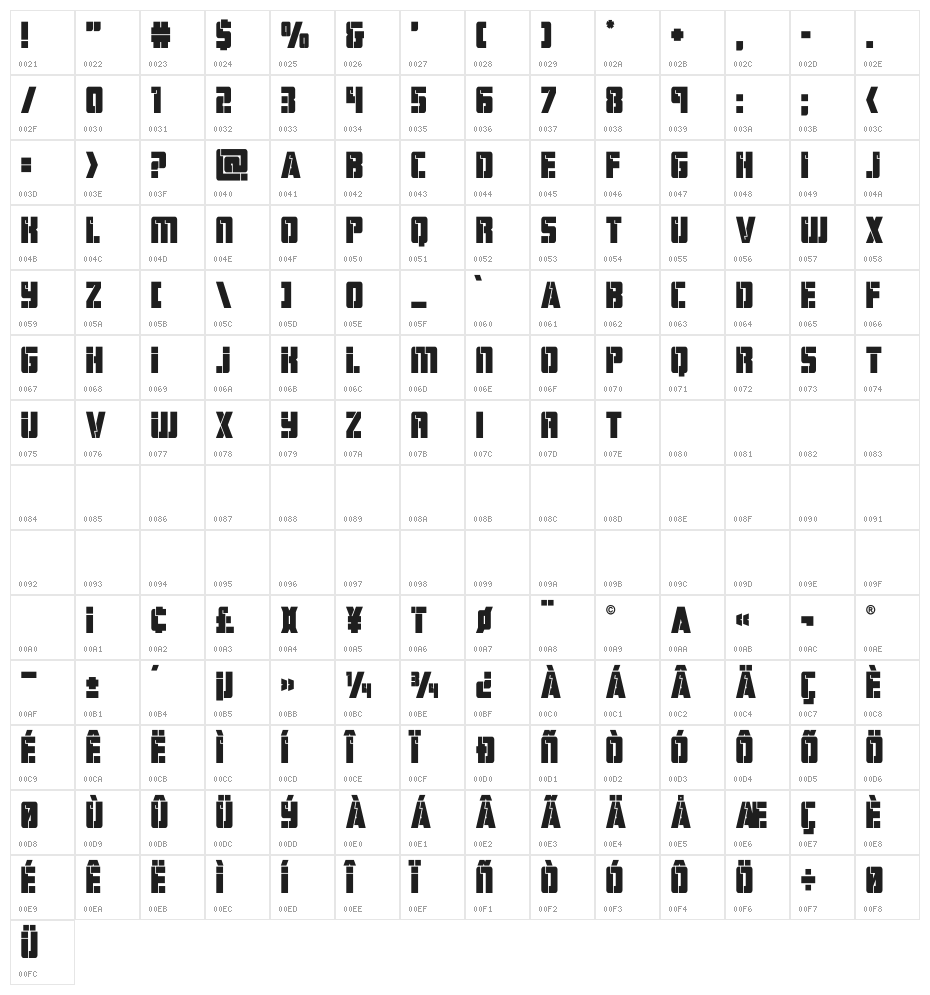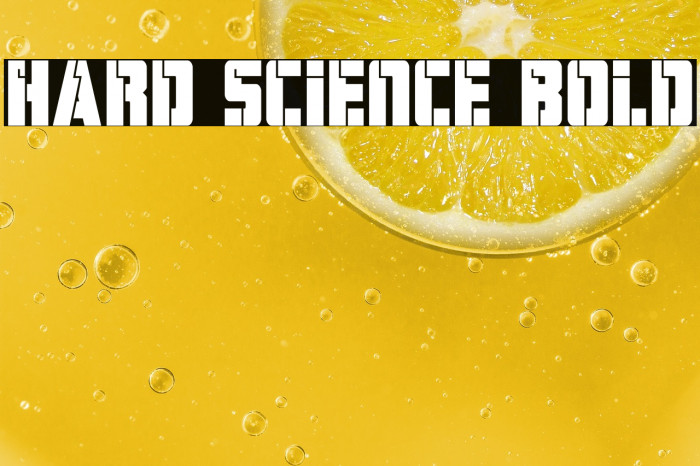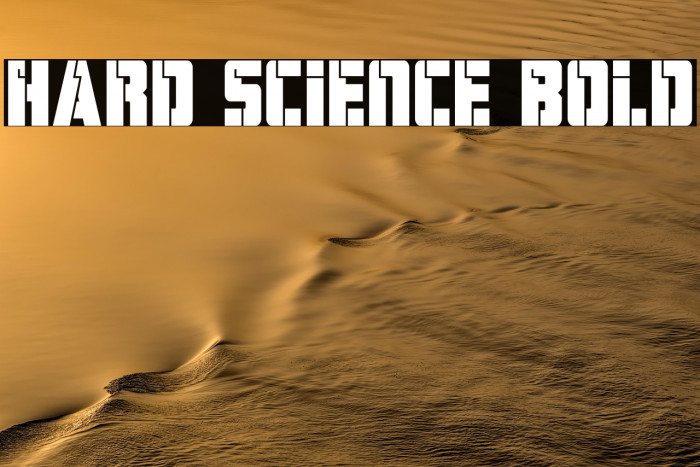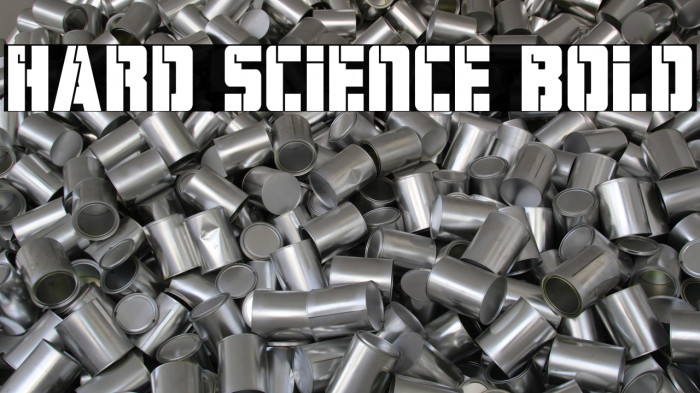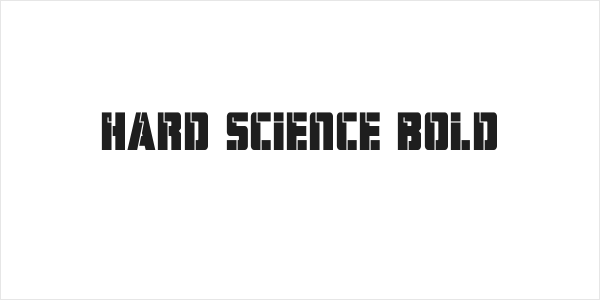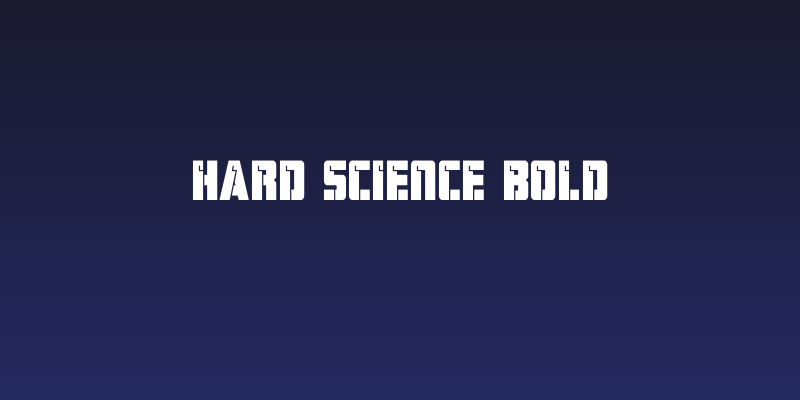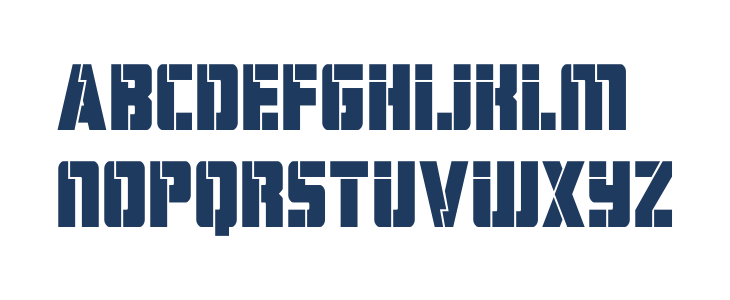
Hard Science Bold Font
Hard Science Bold Description
This font features a bold, geometric design with a futuristic and industrial aesthetic. The characters are constructed with thick, block-like shapes, giving them a strong and impactful presence. The angular cuts and sharp edges create a sense of precision and modernity. The uppercase and lowercase letters maintain a consistent style, with the lowercase slightly smaller but equally bold. Numbers and special characters follow the same design principles, ensuring uniformity across all glyphs. This font is ideal for projects that require a bold statement and a modern, tech-inspired look.
| Proposed Projects | Ideal for technology branding, sci-fi posters, video game titles, and industrial-themed designs. |